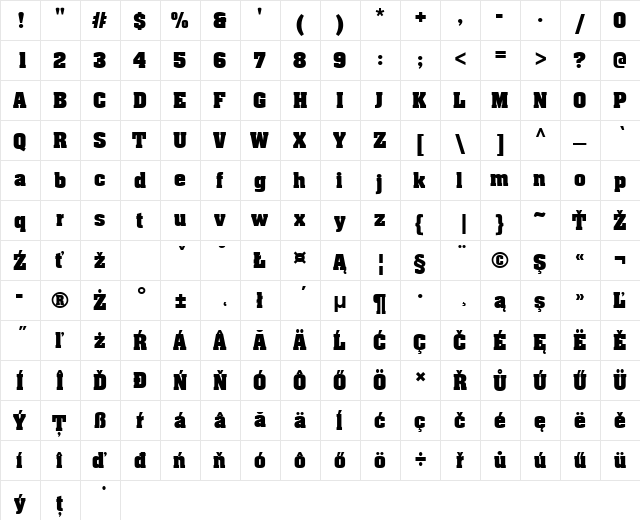
AachenDEEBol Regular
Design Context for AachenDEEBol Typeface
AachenDEEBol offers clean, dependable letterforms without strong stylistic allegiance, making it a practical choice for designers who need flexibility.